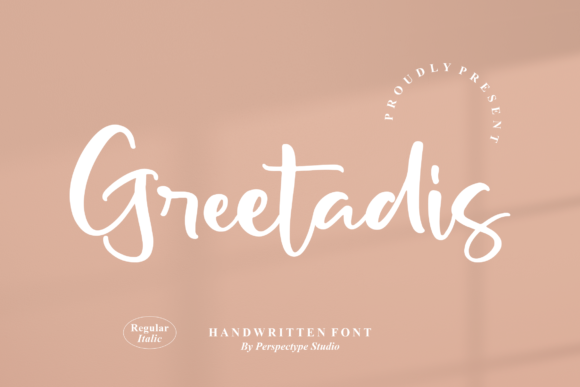
Step into the world of Greetadis, a casual and relaxed handwritten font family that exudes a unique charm, crafted with meticulous attention to detail by Perspectype. This enchanting script font family graces your creative endeavors with a personal touch, bringing life to logos, branding projects, homeware designs, product packaging, mugs, quotes, posters, shopping bags, t-shirts, book covers, name cards, invitation cards, greeting cards, labels, photography, watermarks, special events, and any project yearning for a captivating script style.
With Greetadis, your designs will radiate warmth and authenticity. Its fluid strokes and elegant ligatures dance across the page, evoking a sense of effortless beauty. Let Greetadis become your creative companion, weaving a tapestry of words that captivates and enchants. Whether you're a seasoned designer or just starting your creative journey, Greetadis will effortlessly elevate your designs, adding a touch of sophistication and timeless appeal.
Dive into the boundless possibilities that Greetadis offers. Its versatility knows no bounds, effortlessly adapting to a myriad of design styles. From classic and timeless to modern and edgy, Greetadis seamlessly blends with your vision, becoming an integral part of your creative expression. Let your imagination run wild as you explore the depths of this versatile font family.
Greetadis is more than just a font; it's an experience. It's a journey into the realm of creativity, where your ideas take shape and your designs come alive. Its casual and relaxed style invites you to connect with your audience on a personal level, creating designs that resonate with emotion and authenticity.
So why settle for ordinary, when you can embrace the extraordinary? Embrace Greetadis, the script font family that transforms the mundane into the magnificent. Let its enchanting strokes dance across your designs, captivating your audience with their allure and charm.